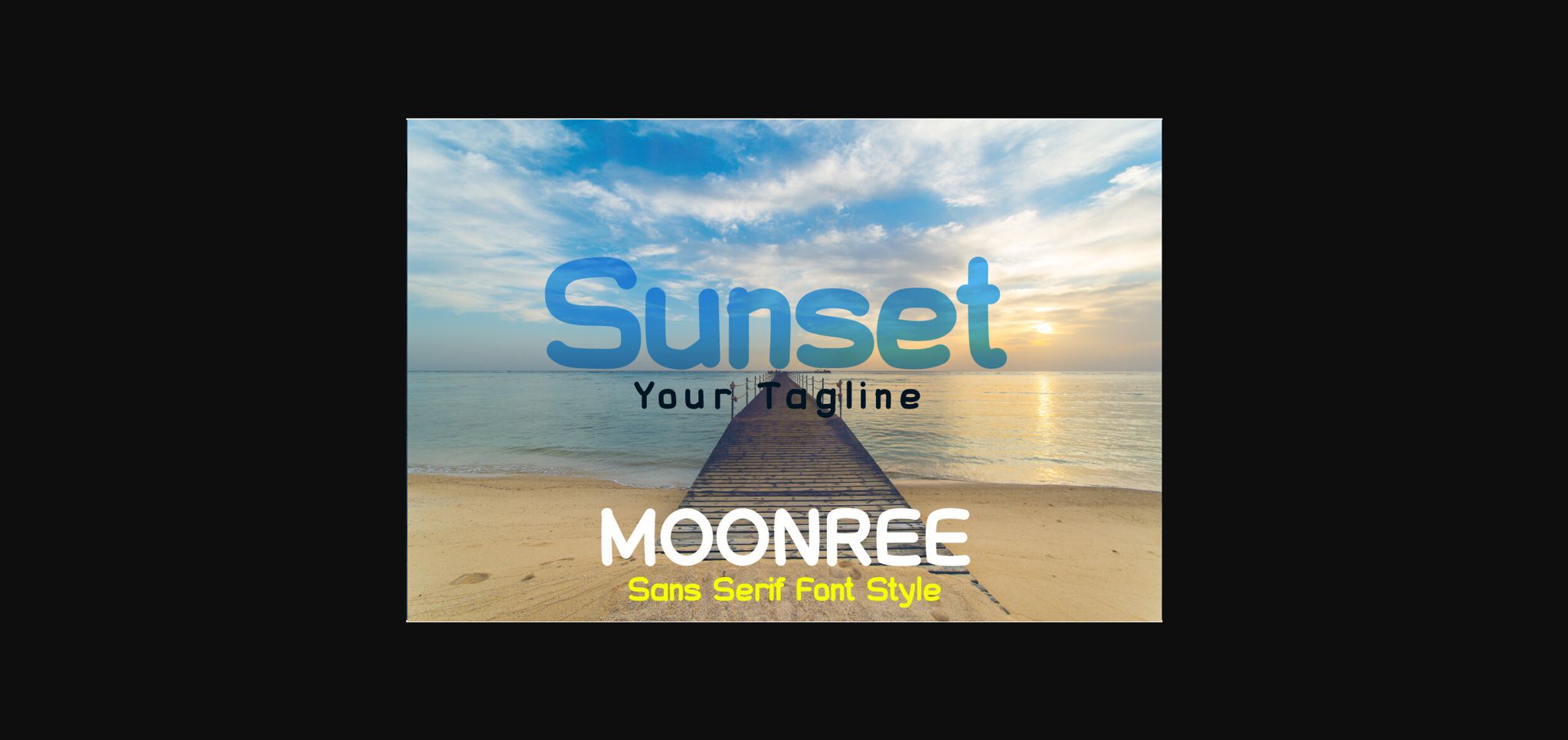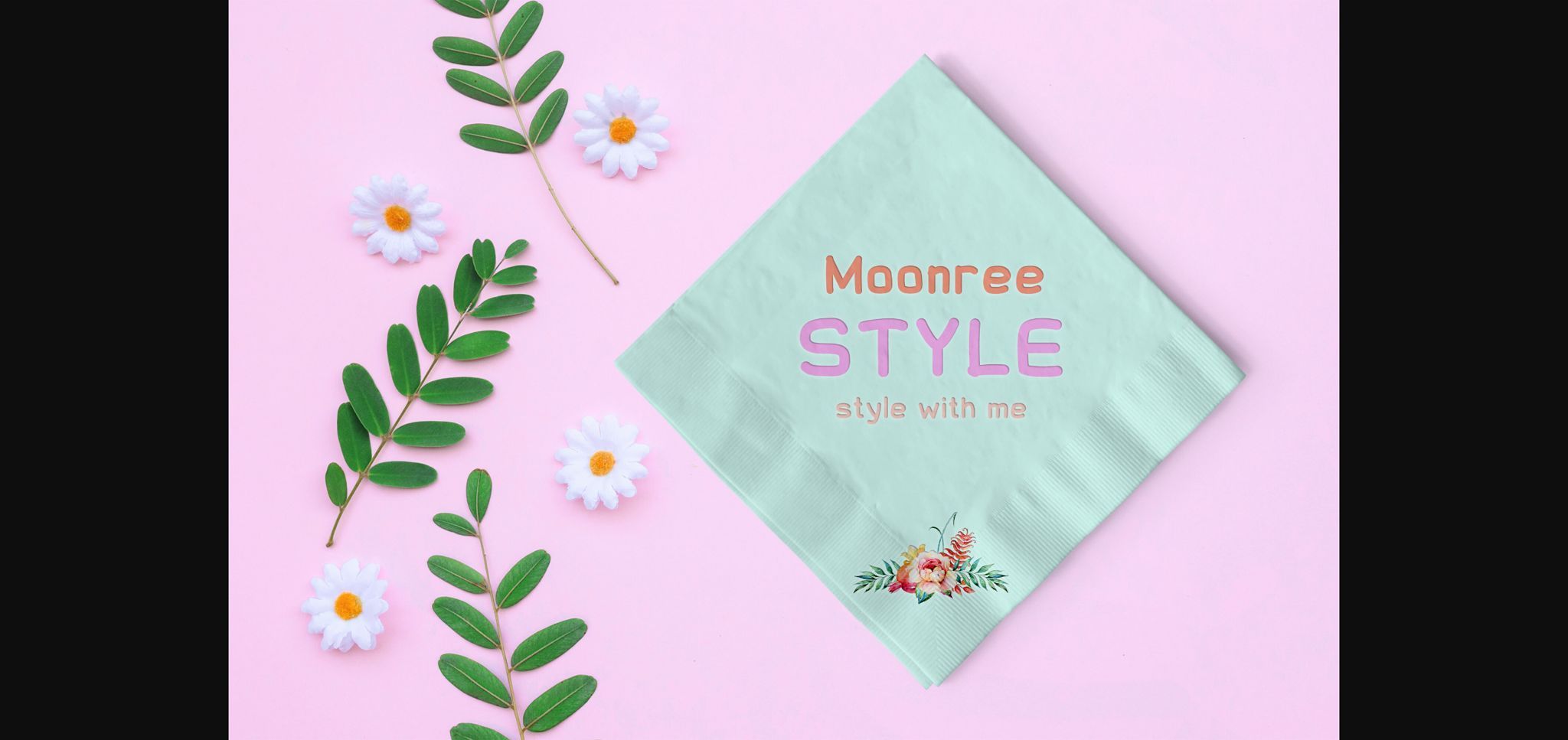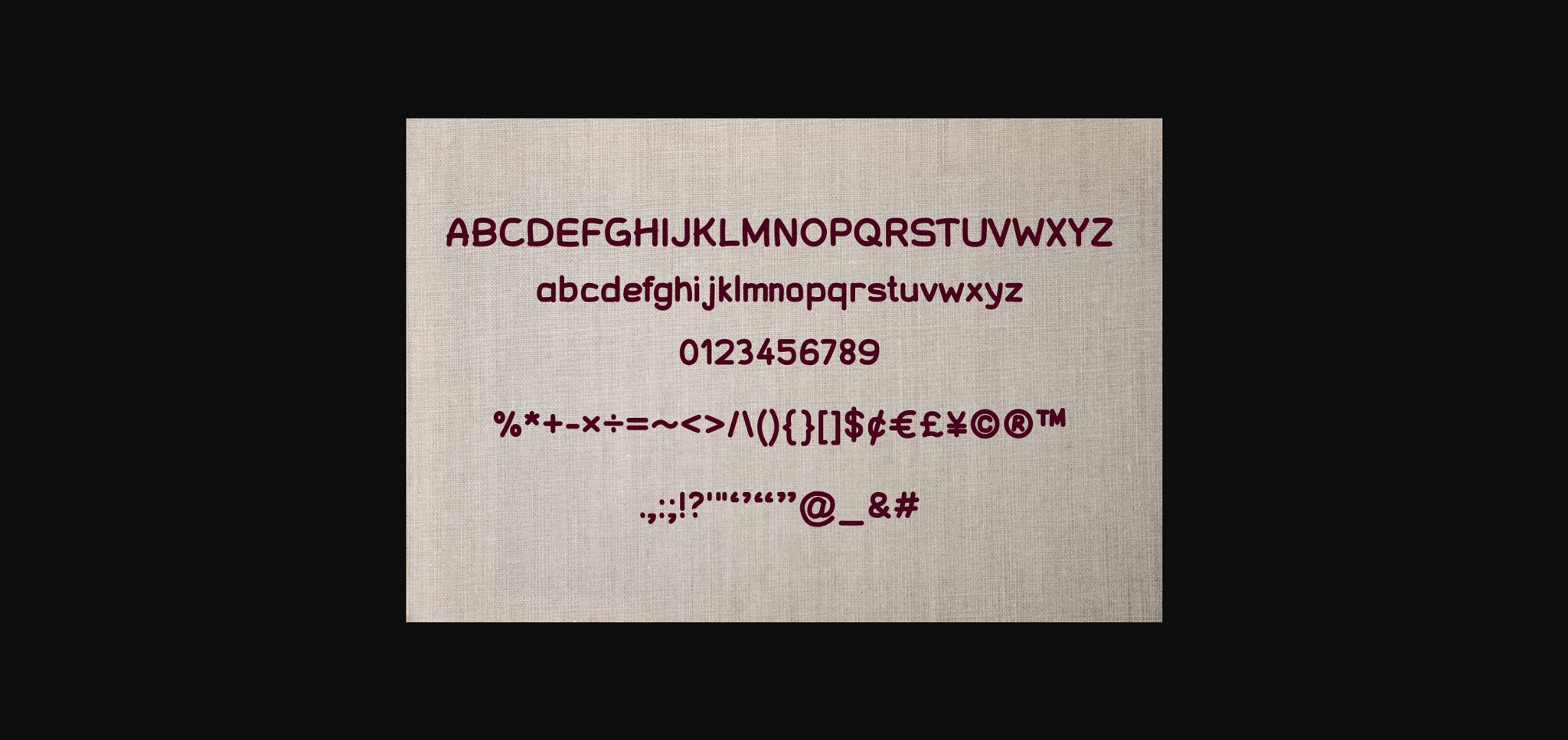
Moonree Font
About Moonree Font
Moonree is designed in an enjoyable handwritten sans serif font style. Let’s try it for your projects, such as presentations, back-to-school, party decorations, posters, blogs, and social media posts. Add it now to your fonts library, and it will bring any of your DIY projects to life. For your make enjoy, I say thank your for buy